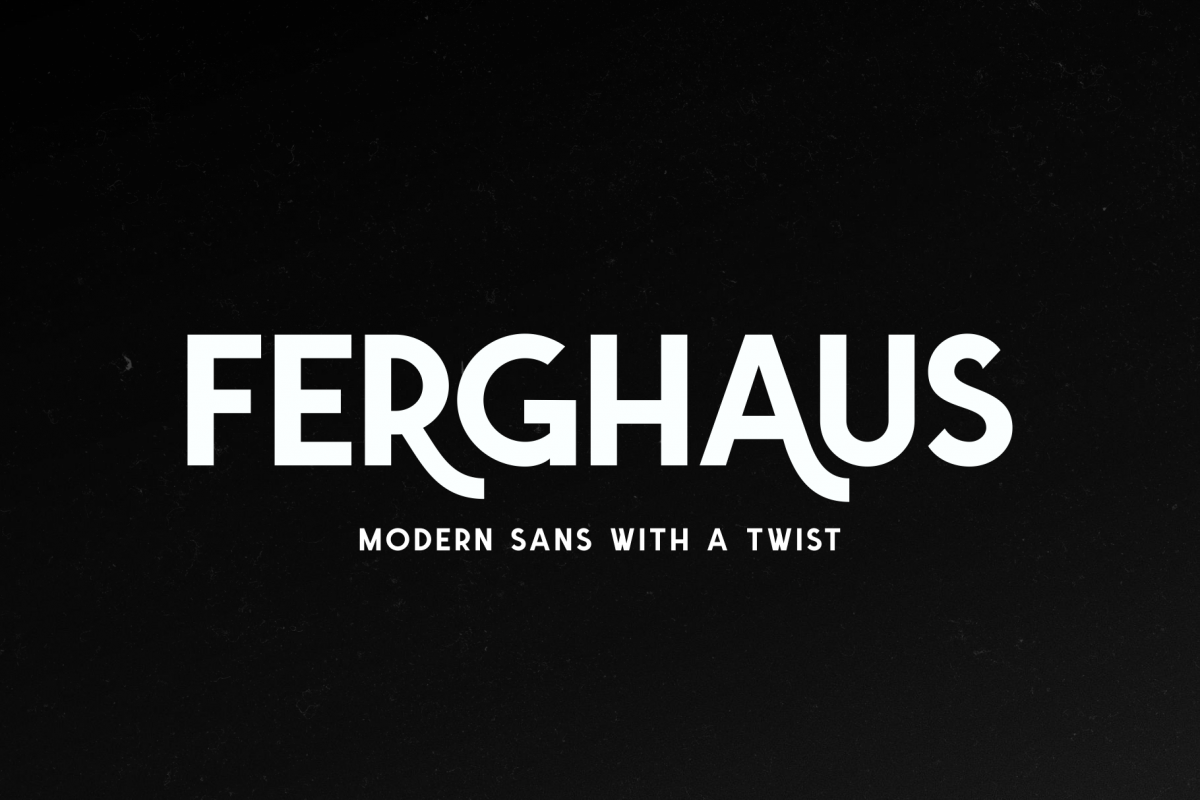
Ferghaus
Introducing Ferghaus, a modern sans serif font. This
all-caps font is crafted with high attention to the details, gives you a
clean and sharp feeling using it on your designs. Packed with so many OpenType
features (such as alternate chars, swashes, ligatures, etc), lets you
play and explore every possibilities with the letters combo. Ferghaus is highly versatile, suits best for almost everything, whether you're working on classic themed design, or the modern ones.
• OpenType features such as alternate characters, stylistic sets,swashes, ligatures, etc,
• Two styles: Regular, and Italic,